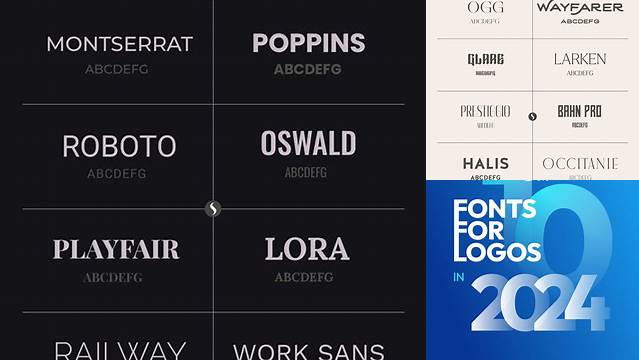
Best Google Fonts For Logos: Top Picks For 2024
Choosing the right font for your logo is crucial. It's the first visual impression your brand makes, so you want it to be a good one! Luckily, Google Fonts offers a fantastic library of free fonts that can help you create a logo that's both professional and eye-catching. This article dives deep into the best Google Fonts for logos in 2024, giving you tons of options and inspiration to elevate your brand identity. We'll explore different font styles, pairings, and use cases, ensuring you find the perfect match for your brand's personality. So, let's jump in and discover the world of typography!
1. Understanding the Importance of Font Choice in Logo Design
Hey guys! Ever wondered why some logos just click while others feel…meh? A huge part of it is the font! The font you choose isn't just about how the letters look; it’s about the entire vibe it gives off. Think of it like this: a playful, rounded font might be awesome for a kids' brand, but it would feel totally out of place for a law firm, right? In essence, your font is a silent ambassador for your brand. It communicates your personality, your values, and even your target audience. Choosing the right Google Font for your logo can make the difference between a logo that blends in and a logo that stands out. We'll break down the key elements to consider when picking your perfect typeface, ensuring your brand message is loud and clear.
2. Serif Fonts for Logos: Timeless and Trustworthy
Serif fonts are those classic typefaces with the little feet (or serifs!) at the end of each stroke. They’re like the old-school, dependable friends of the font world. Think Times New Roman, but way cooler! These fonts often evoke a sense of tradition, authority, and sophistication. This makes them ideal if you want your brand to be perceived as established, trustworthy, or even a bit luxurious. Using a serif font in your logo can instantly add a touch of elegance and credibility. We'll explore specific examples of killer serif fonts from Google Fonts that can give your logo that timeless appeal, perfect for businesses aiming for a classic, enduring image.
3. Sans-Serif Fonts: Modern and Minimalist Logo Options
Sans-serif fonts, on the other hand, are the sleek, modern cousins of the serif fonts. They ditch the little feet and go for a cleaner, more straightforward look. These fonts feel contemporary, approachable, and often convey a sense of simplicity and clarity. If your brand is all about innovation, technology, or a minimalist aesthetic, a sans-serif font for your logo might be just the ticket. They're super versatile and work well in both digital and print formats. We'll showcase some of the top sans-serif Google Fonts that are perfect for creating a logo that feels fresh, modern, and cutting-edge.
4. Slab Serif Fonts: Bold and Impactful Logo Designs
Okay, so slab serif fonts are like the bold, attention-grabbing siblings in the serif family. They've got those serifs, but they're thick and blocky, making a real statement. If you want your logo to pack a punch and exude confidence, slab serif fonts are definitely worth considering. They're often used for brands that want to feel strong, reliable, and a little bit vintage. Imagine the logo for a coffee shop or a craft brewery – a slab serif font would fit right in! We'll delve into some fantastic slab serif options from Google Fonts that will help your logo command attention.
5. Script Fonts for Logos: Elegant and Personal Branding
Script fonts are all about adding a touch of personality and elegance. They mimic handwriting, giving your logo a more personal and handcrafted feel. If your brand is about creativity, artistry, or a personal touch, a script font in your logo can be a beautiful choice. Think wedding photographers, artisanal bakeries, or boutique shops. However, script fonts can sometimes be tricky to read, especially in smaller sizes, so it’s crucial to choose wisely. We'll guide you through some of the most legible and stunning script fonts available on Google Fonts, ensuring your logo is both beautiful and easily readable.
6. Display Fonts: Unique and Creative Logo Styles
Display fonts are where things get really fun and creative! These fonts are designed to be eye-catching and attention-grabbing, often with unique and quirky characteristics. If your brand wants to stand out from the crowd and make a bold statement, a display font in your logo could be the perfect way to do it. They’re great for brands that are playful, edgy, or want to convey a specific personality. But remember, with great power comes great responsibility! Display fonts should be used sparingly and strategically to ensure legibility and avoid overwhelming your audience. We'll highlight some of the most interesting and effective display fonts on Google Fonts, helping you find that perfect unique touch for your logo.
7. Top 5 Serif Google Fonts for Logo Design
Let's get specific, shall we? When it comes to serif Google Fonts for logos, these are some absolute winners. We're talking fonts that have that classic, timeless appeal, perfect for brands that want to convey trust and sophistication. Each of these fonts brings something unique to the table, from the elegant curves to the strong, confident lines. We'll break down why these fonts work so well in logo design, giving you practical examples of how they can elevate your brand's image. Get ready to be inspired!
8. Top 5 Sans-Serif Google Fonts for Modern Logos
If you're aiming for a modern and minimalist logo, sans-serif fonts are your best friend. They're clean, versatile, and convey a sense of clarity and innovation. This section highlights the top 5 sans-serif Google Fonts that are perfect for creating a logo that feels fresh and contemporary. These fonts are not only visually appealing but also highly legible, ensuring your brand message is communicated effectively. We'll explore their unique characteristics and how they can be used to create a logo that truly represents your brand's identity.
Choosing the wrong font for your logo can be a costly mistake. This section highlights common mistakes to avoid when selecting fonts for your logo, helping you make informed decisions and create a logo that effectively represents your brand.
30. Resources for Finding Inspiration for Logo Typography
Need some inspiration for your logo typography? There are tons of online resources available, from font pairing tools to design galleries. This section provides a curated list of resources for finding inspiration for logo typography, helping you discover new fonts and design styles.